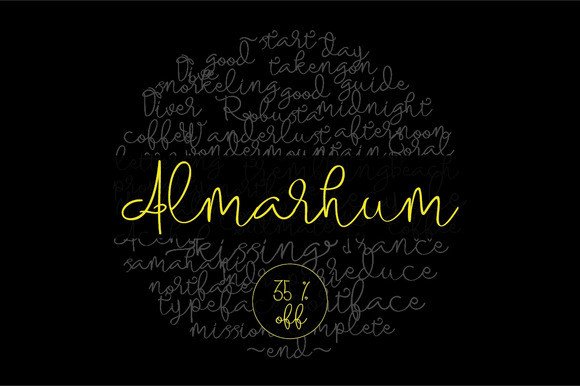
Feast your design eyes on Almarhum, the monoline script font that offers a casual and relaxed vibe, crafted with meticulous care by Incools Design Studio. This elegant thin font effortlessly blends aesthetics and functionality, harmonizing flawlessly with your creative endeavors. With Almarhum, transform your projects into captivating journeys, where your words take center stage and dance across the canvas with grace.
Experience the joy of effortless writing with Almarhum, where curves flow seamlessly, creating an irresistible allure. Its delicate strokes captivate the senses, adding a touch of charm to your artistic expressions. Embrace the artistry of Almarhum and infuse your designs with a touch of sophistication, all while maintaining a down-to-earth, easy-going appeal.
Discover the versatility of Almarhum, a font that effortlessly complements a range of projects, from personal invitations to heartfelt letters. Its inherent charm shines through, whether you're crafting a whimsical logo, a heartfelt greeting card, or a captivating poster. Let Almarhum be your guide as you embark on a creative adventure, where your imagination knows no bounds.
Almarhum is your gateway to a world where elegance and simplicity collide. Its thin lines intertwine with fluidity, exuding a sense of calmness and serenity. As your fingers glide across the keyboard, Almarhum's characters come to life, weaving a tale of artistic expression that resonates with your audience. Let your designs whisper sweet nothings with Almarhum, a font that speaks volumes even in its delicate silence.
With Almarhum, you'll find yourself revisiting the beauty of handwritten letters, where every stroke carries a personal touch. Engage your audience with the charm of Almarhum, a font that speaks to the heart and leaves a lasting impression. Dive into the realm of creativity with Almarhum, where your designs bloom with elegance and simplicity.